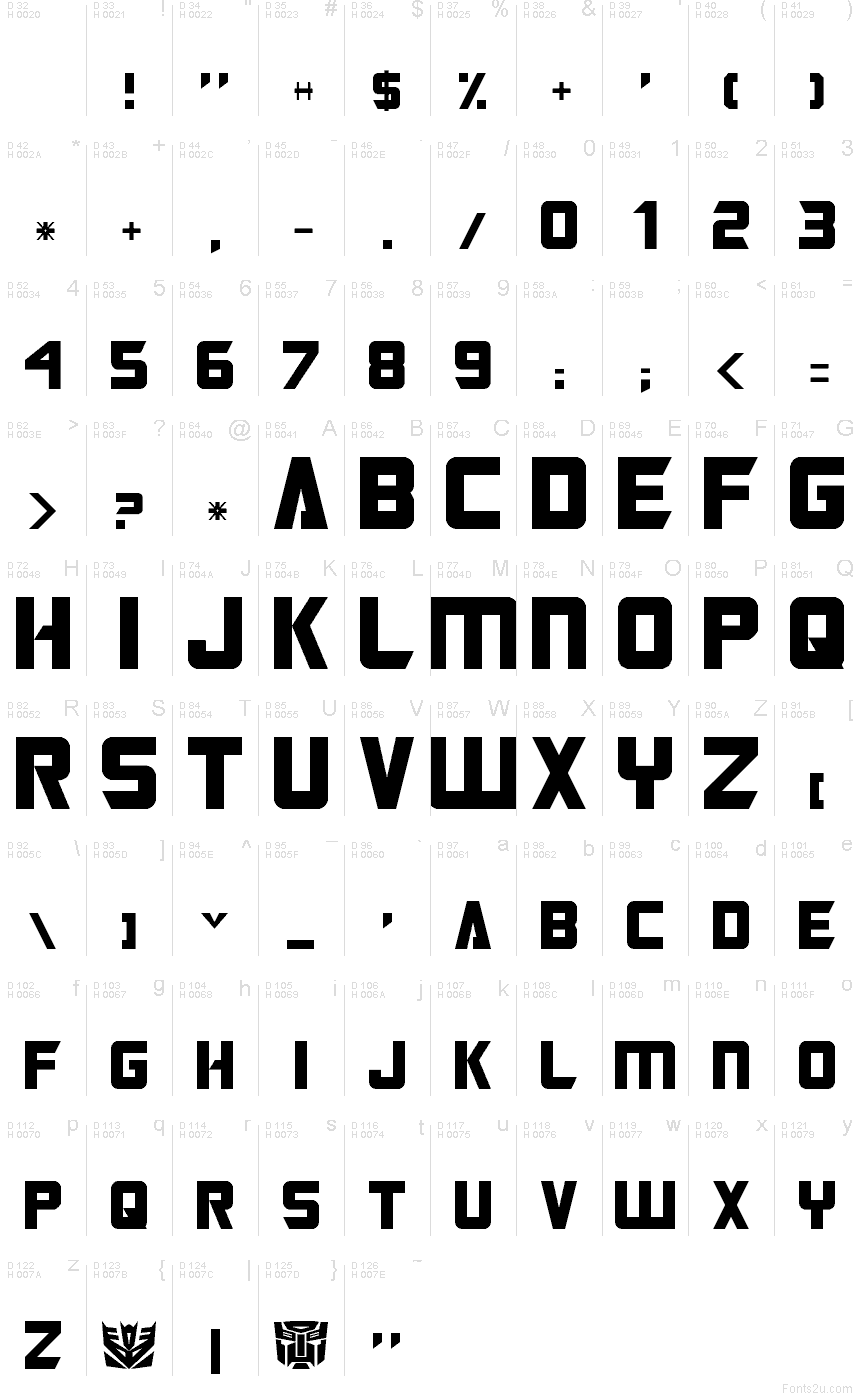
It Started Out As A Toy Line Of Robotic Beings Who Could Be Transformed Into All Sorts Of Vehicles, But It's Today Probably Better Known For The Hugely Successful Film Franchise.
Movies and tv, all caps,. Download the transformers font for free or use it to generate a fancy logo using the custom graphics generator. Designed from the original transformers (2007) movie.